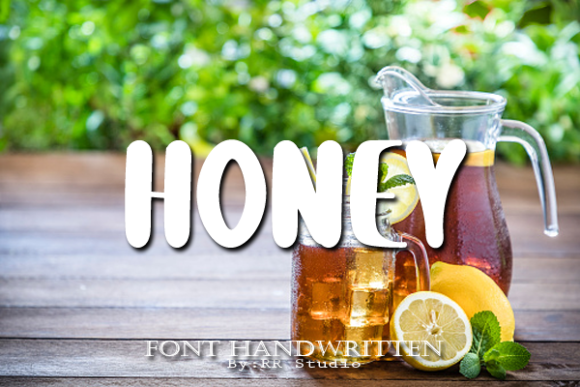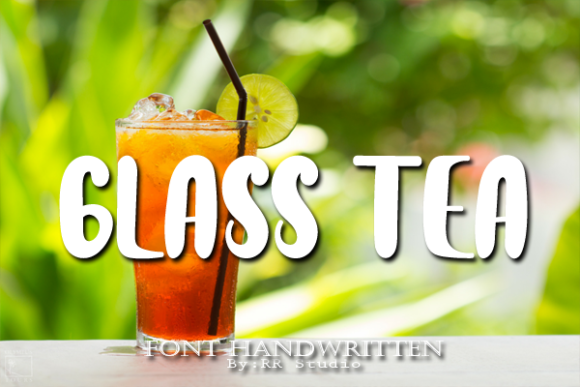
Lemon Tea Font
db-ku.com - Script & Handwritten -- Lemon Tea is a cute, friendly and unique handwritten font. Expertly designed to be a true favourite, this font has the potential to take any of your creative ideas to the highest level!